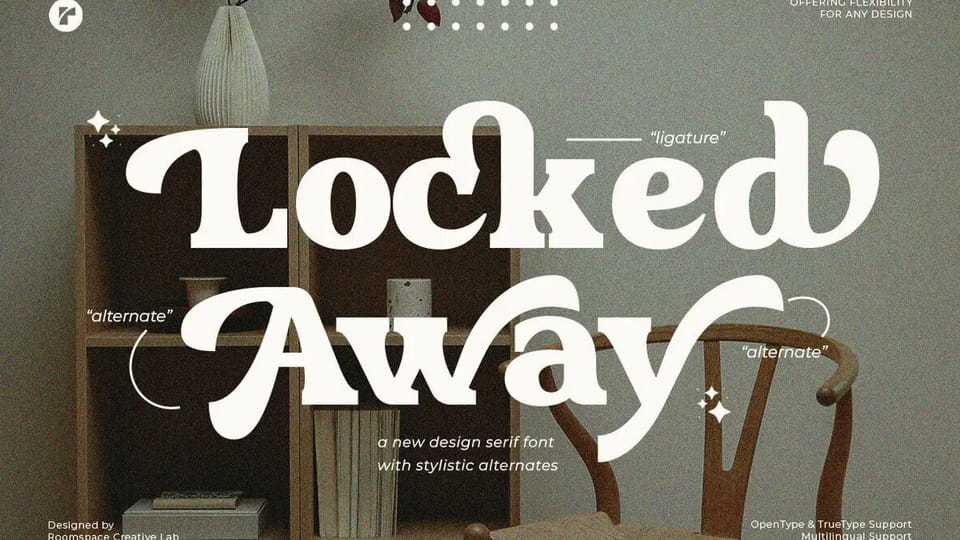
Download Locked Away font, a contemporary serif typeface that artfully combines sophistication with uniqueness. What truly sets Locked Away apart is its distinctive design.